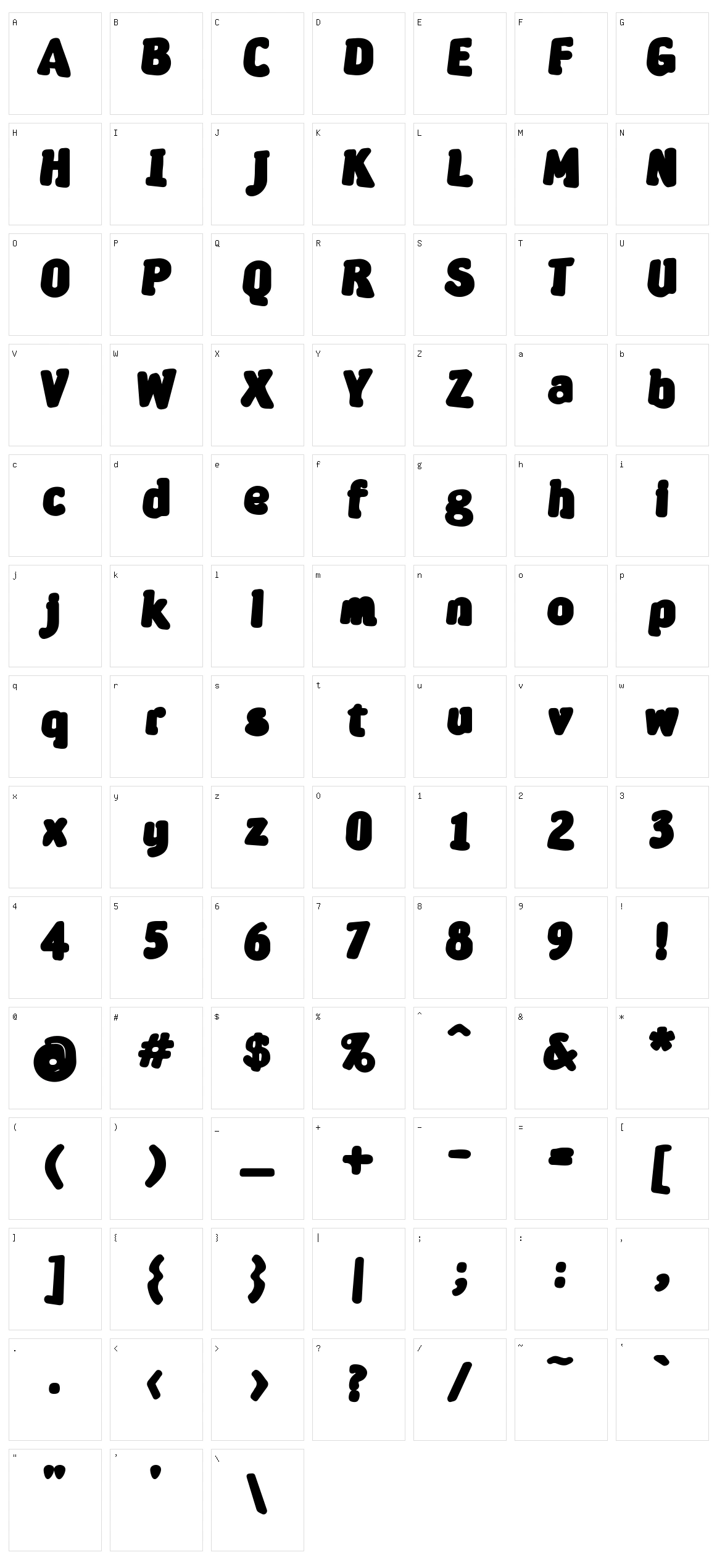
Around the end of June I received a package from Link Olsson. In it were a book called History of the Comic Strip (by David Kunzle), and four letter-sized sheets with the big drawing of a letter on each of them. The letters were the A, M, R and d.
The four letters that Link drew evolved into Severina, the font included with this text file. The way it evolved was simply by Link and myself exchanging opinions about Kunzle's book, and each of us drawing more letters. The overlapping of the letters was my idea (my initial impression of comic strips is that they pass their ideas through emphasis and size, and Kunzle's book confirmed that impression).